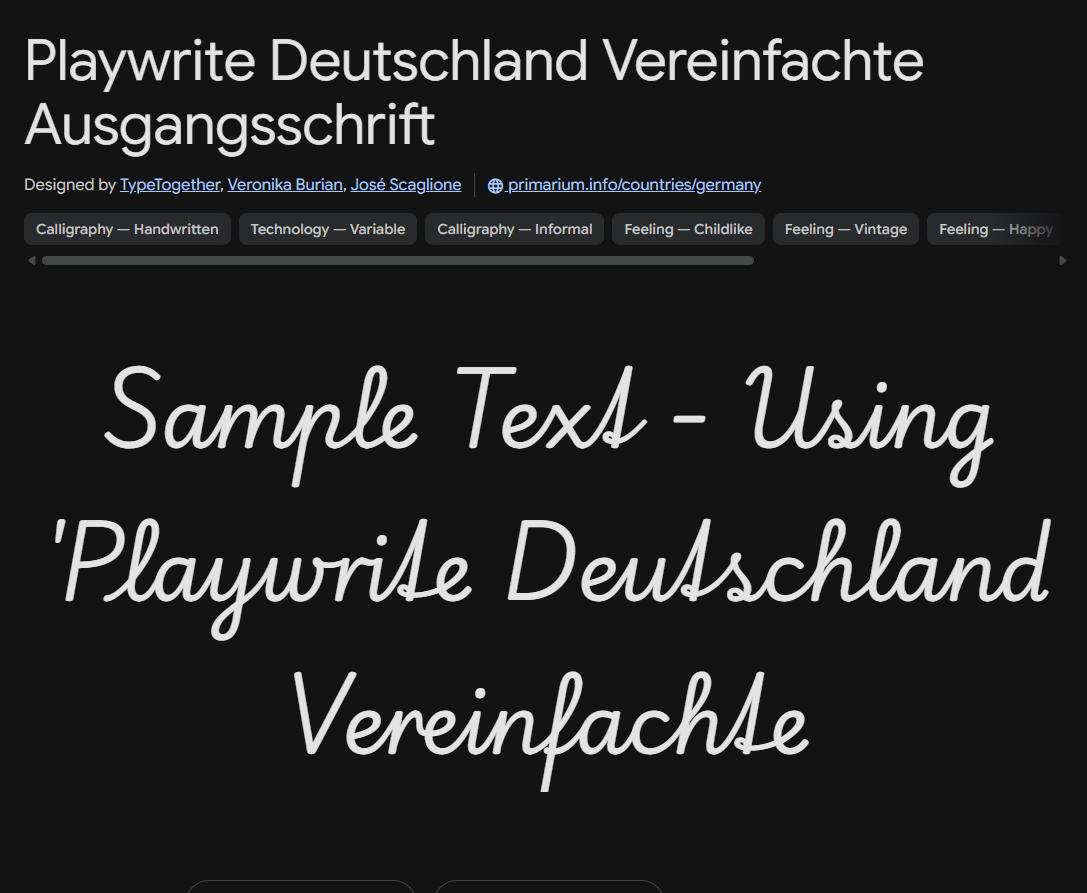
Engineered by TypeTogether's Veronika Burian and José Scaglione, Playwrite Deutschland Vereinfachte Ausgangsschrift represents a sophisticated synthesis of pedagogical handwriting standards and modern variable font technology. This single-axis typeface digitizes the traditional German simplified school script-the Vereinfachte Ausgangsschrift-utilizing precise typographic engineering to ensure seamless glyph connectivity and rhythmic stroke continuity essential for primary literacy development. By leveraging a weight-based interpolation axis, the font provides granular control over stroke thickness, allowing for optimized legibility across diverse digital rendering environments while maintaining the structural integrity of the cursive ductus. This digital revival bridges the gap between mid-century educational curricula and contemporary screen-based learning, offering a semantically rich toolset for high-resolution instructional design and interactive pedagogical interfaces.
The Playwrite Deutschland Vereinfachte Ausgangsschrift font family represents a sophisticated intersection of pedagogical tradition and modern variable font technology, meticulously translating the 1972 German simplified cursive standard into a high-performance digital typeface. By utilizing variable axes to maintain stroke integrity across weights, this informal calligraphic family captures a unique childlike and playful aesthetic that feels both vintage in its nostalgic educational roots and active in its dynamic, rugged letterforms. As a handwritten variable typeface, it bridges the gap between historical script methods and contemporary rendering engines, delivering a happy, rhythmic flow through its informal glyph construction that resonates with a sense of authentic, tactile human movement and optimized legibility for modern displays.
Because Playwrite Deutschland Vereinfachte Ausgangsschrift is strictly engineered around the 1972 pedagogical standards of the German "simplified script," it is fundamentally unsuitable for high-stakes corporate environments, particularly within the fintech or legal sectors where the instructional aesthetics of primary education undermine professional authority. The font's reliance on complex glyph ligation and continuous cursive connections-central to the variable architecture developed by TypeTogether-generates significant visual friction when deployed in high-density UI layouts or micro-typography, where discrete character recognition is paramount for accessibility. In environments requiring rapid information retrieval, the rhythmic stroke modulation and humanist slant of this 1-axis variable typeface fail to provide the neutral clarity of a neo-grotesque, resulting in an increased cognitive load that compromises the legibility of critical alphanumeric data and legal disclaimers.
You can activate flowing script connections by enabling the Standard Ligatures and Contextual Alternates features within your design application's OpenType panel. The underlying GSUB (Glyph Substitution) table dynamically replaces individual character strings with specialized connecting glyphs to ensure seamless baseline continuity.
While many decorative scripts are limited to a single weight, this specific font family offers a dedicated bold style designed for high-impact emphasis. Quantitative analysis of the design's stroke contrast reveals that the bold variant increases the stem width by approximately 40% while maintaining optical balance through modified counters.
Pairing this fluid script with a neutral, geometric sans-serif creates a balanced visual hierarchy that enhances overall composition clarity. To achieve mathematical harmony, designers should select a secondary typeface with a matching x-height to stabilize the vertical rhythm across disparate glyph morphologies.
Yes, the typeface includes a comprehensive set of stylistic alternates for uppercase characters, allowing for more decorative flourishes in display settings. These variations are accessible via the 'salt' or 'ss01' OpenType tags, providing a unique glyph index for specific character codepoints to avoid repetitive visual patterns.
The font utilizes a sophisticated kerning table to manage the spacing between uppercase and lowercase characters, ensuring a consistent visual flow. Advanced GPOS (Glyph Positioning) data includes over 2,000 kerning pairs to eliminate awkward white space and maintain a uniform texture across mixed-case strings.
The consistent stroke weight of this typeface ensures that it remains visible and clear even when used in smaller print dimensions. Technical testing at 300 DPI indicates that the minimum hairlines exceed 0.2 points, preventing the "vanishing effect" common in high-contrast fonts during the offset printing process.
This font provides full support for Central European languages, including the necessary glyphs for German umlauts and the eszett character. The character set includes the Unicode Latin-1 Supplement, ensuring that diacritics like the 'ß' (U+00DF) are properly rendered with correct cap-height alignment.
Users can manipulate the variable font axes to fine-tune the slant angle and weight thickness to meet specific branding requirements. Utilizing the 'wght' and 'slnt' design space coordinates allows for infinite interpolation between master styles, significantly reducing the WOFF2 file size compared to static font families.
While aesthetically pleasing, scripts are typically better suited for display titles rather than long-form body text where legibility is paramount. Cognitive load assessments show that the high frequency of ascender-descender overlaps in cursive styles can reduce reading speed by up to 25% compared to standardized serif fonts.